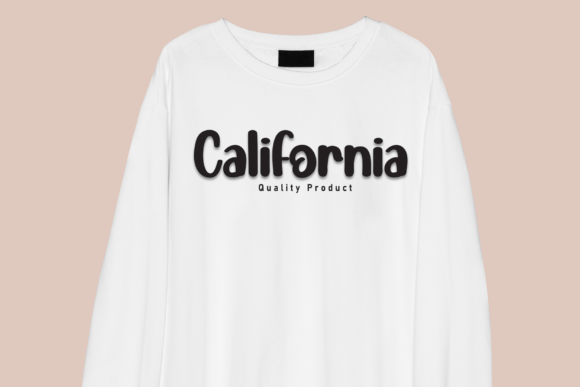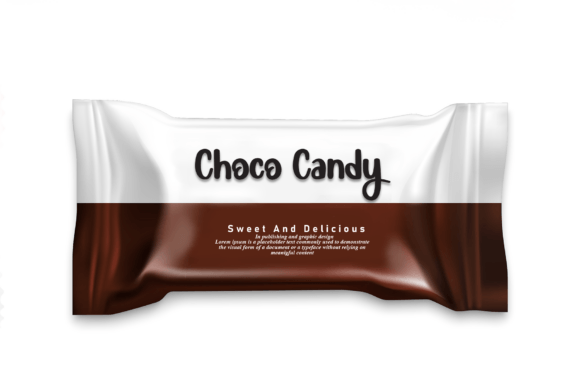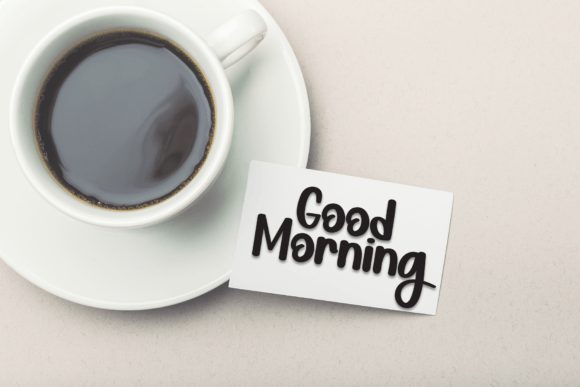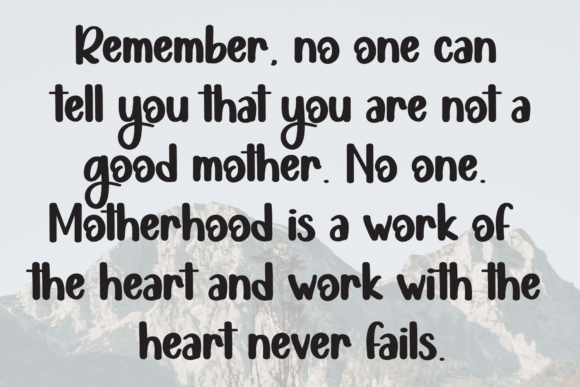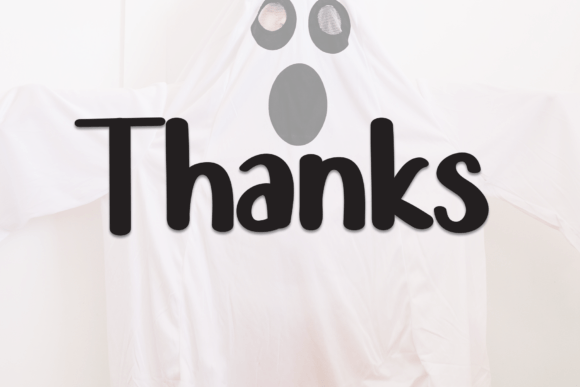
The Joy of Ghost Font: Elevating Your Designs with Playful Elegance
I’ll never forget the time I was working on a wedding invitation project, and my client asked for a font that was “playful, yet elegant.” I scoured the internet, tried out countless fonts, but nothing seemed to fit the bill. That was until I stumbled upon Ghost Font. This charming, casually penned display font has been a game-changer for me, and I’m excited to share its magic with you! ✨
An Honest Review of Ghost Font
- ✨ Playful elegance: Ghost Font exudes a sense of whimsy and sophistication, making it perfect for wedding invitations, cards, and other special designs.
- ✅ Easy to read: Despite its playful nature, Ghost Font remains highly legible, even at smaller sizes.
- 💃 Versatile: This font is suitable for a wide range of design projects, from formal events to casual gatherings.
While Ghost Font is an excellent choice for many designs, there are a few things to keep in mind: ⚠️
- 🤔 Limited use for body text: Due to its display nature, Ghost Font may not be the best choice for longer blocks of text.
- ⚠️ May not be suitable for very formal events: While Ghost Font is elegant, it still has a playful edge that may not be suitable for very formal or traditional events.
- Experiment with OpenType features, such as glyphs and stylistic alternates, to add visual interest to your design.
The Backstory of Ghost Font
Ghost Font was designed with the intention of creating a playful, yet elegant typeface. The designer wanted to craft a font that would bring a sense of joy and whimsy to designs, while still maintaining a level of sophistication. The result is a font that is both charming and versatile.
Q: What is Ghost Font best suited for?
A: Ghost Font is perfect for wedding invitations, cards, and other special designs where you want to add a touch of playful elegance.
Q: Is Ghost Font easy to read?
A: Yes, Ghost Font is highly legible, even at smaller sizes, making it suitable for a wide range of design projects.
Q: Can I use Ghost Font for body text?
A: While Ghost Font is an excellent display font, it may not be the best choice for longer blocks of text. Consider using a serif or sans-serif font for body text instead.
Q: Is Ghost Font suitable for very formal events?
A: While Ghost Font is elegant, it still has a playful edge that may not be suitable for very formal or traditional events. Consider using a more traditional font for these types of designs.